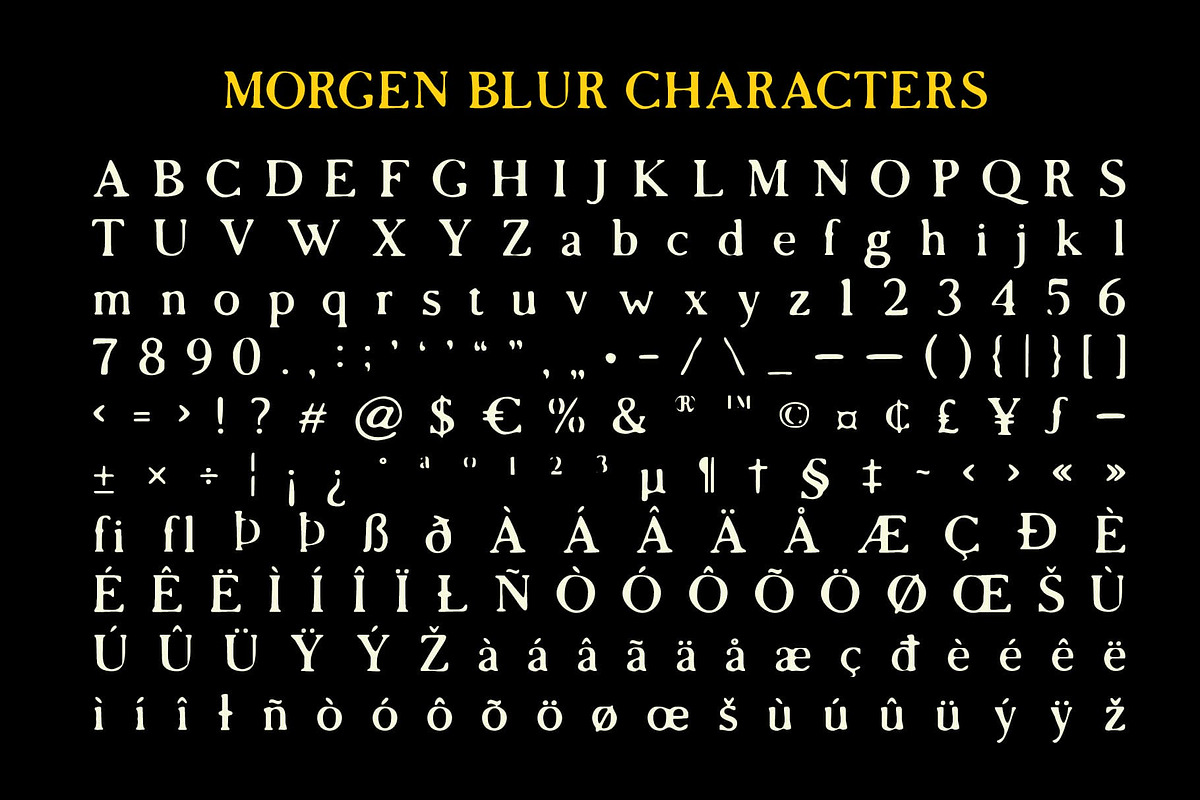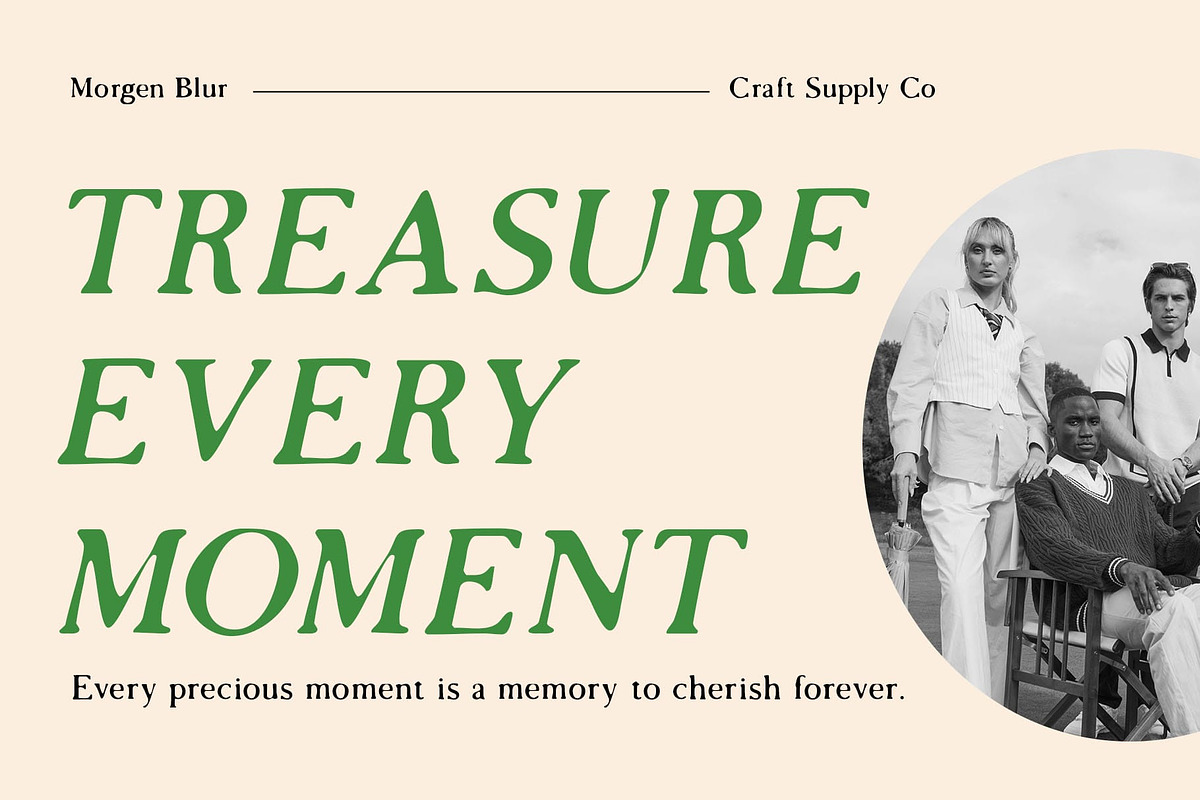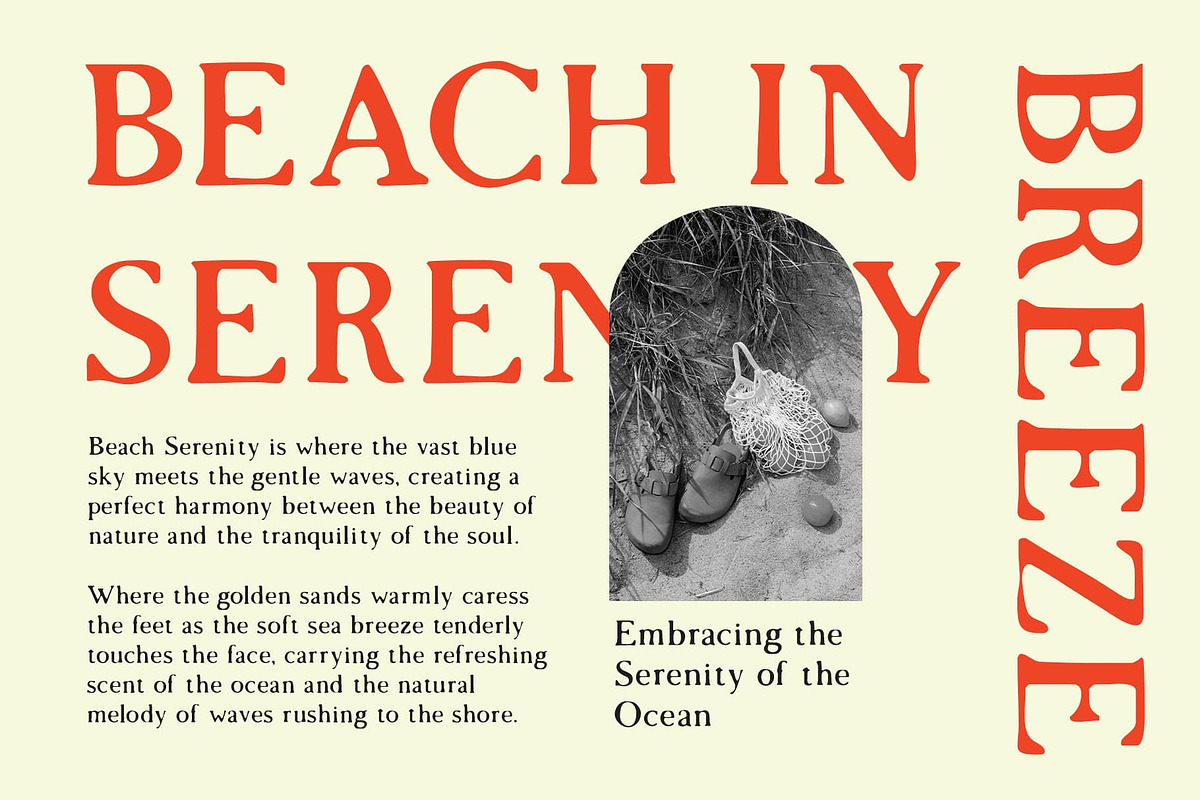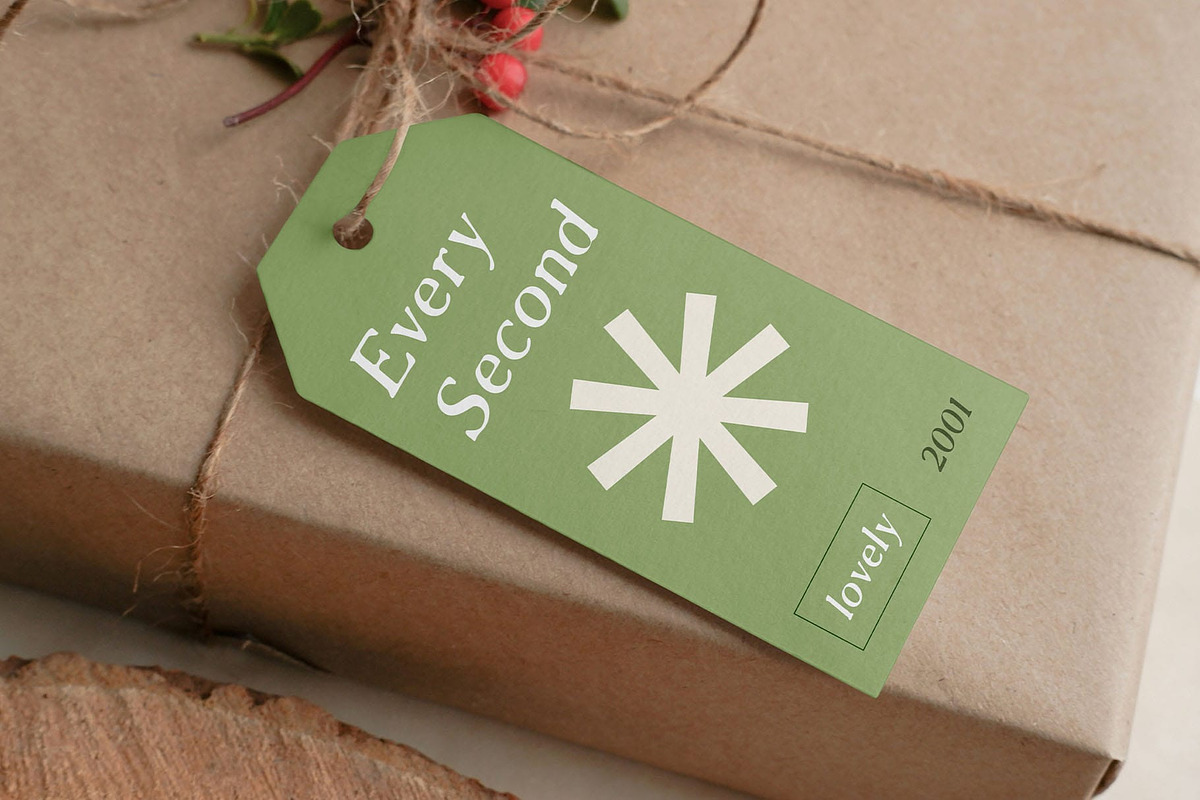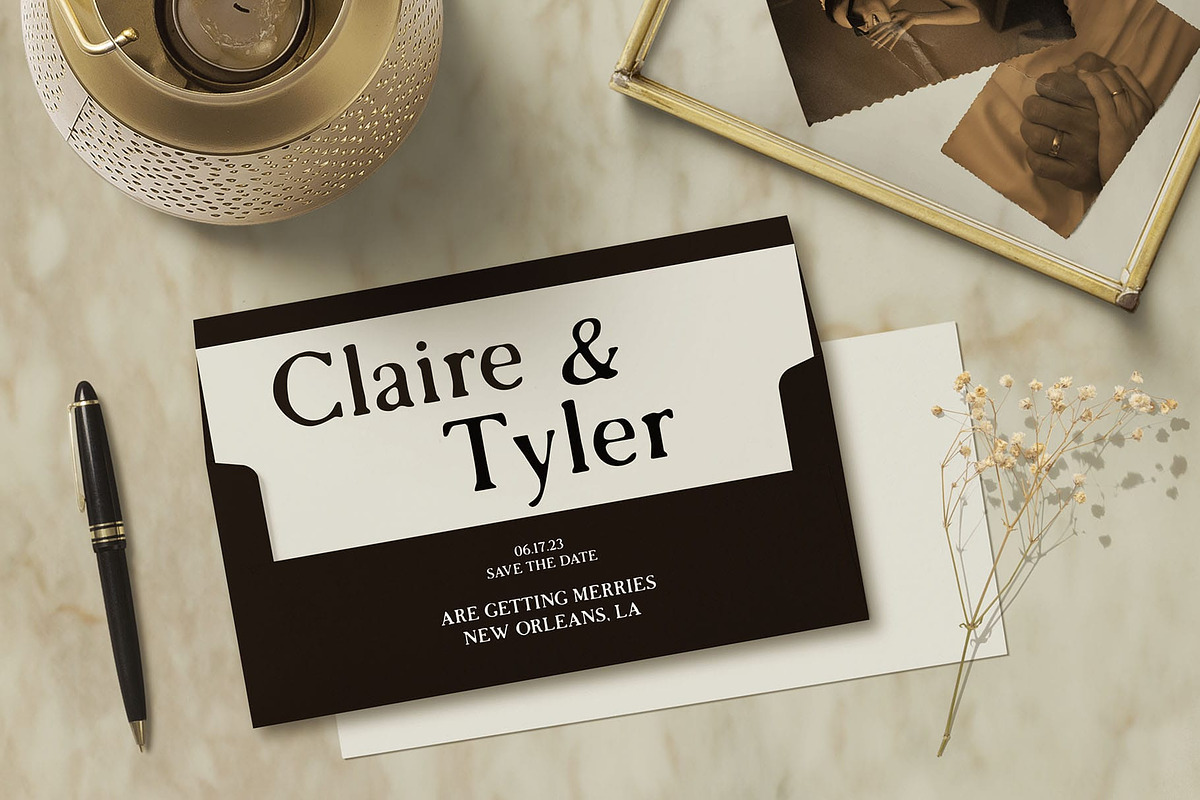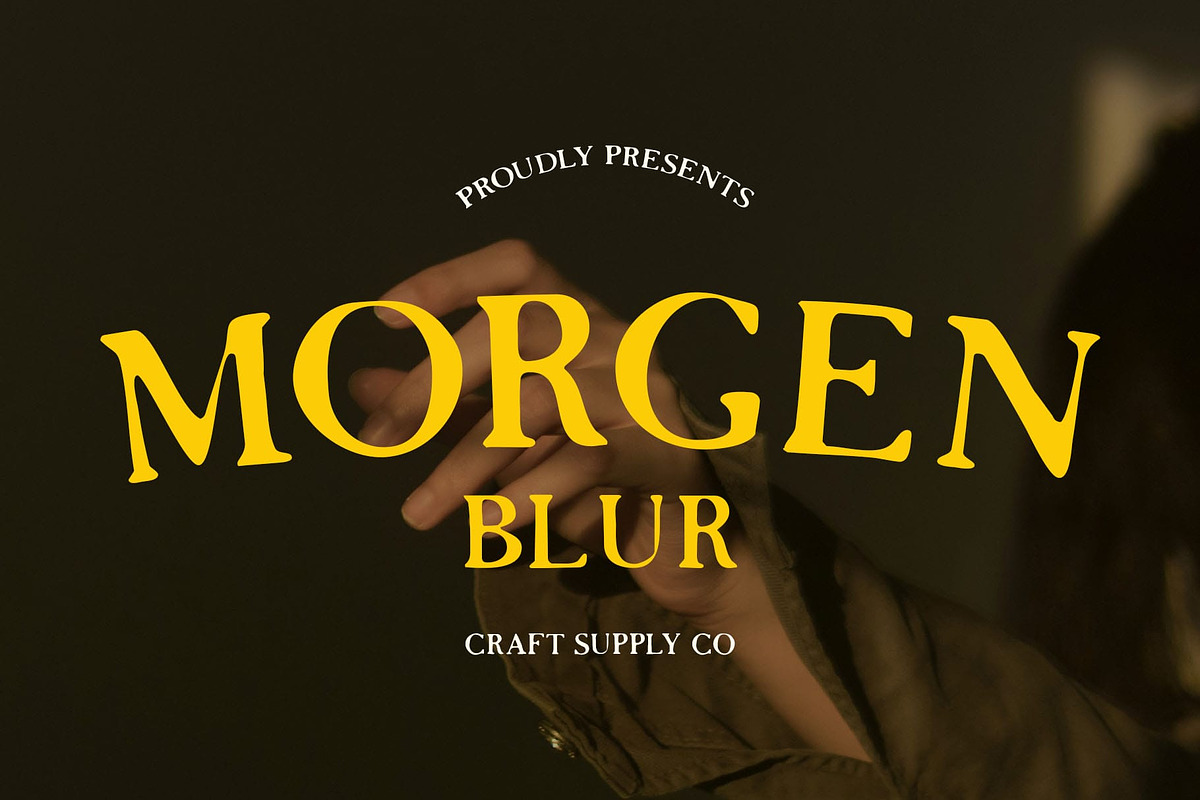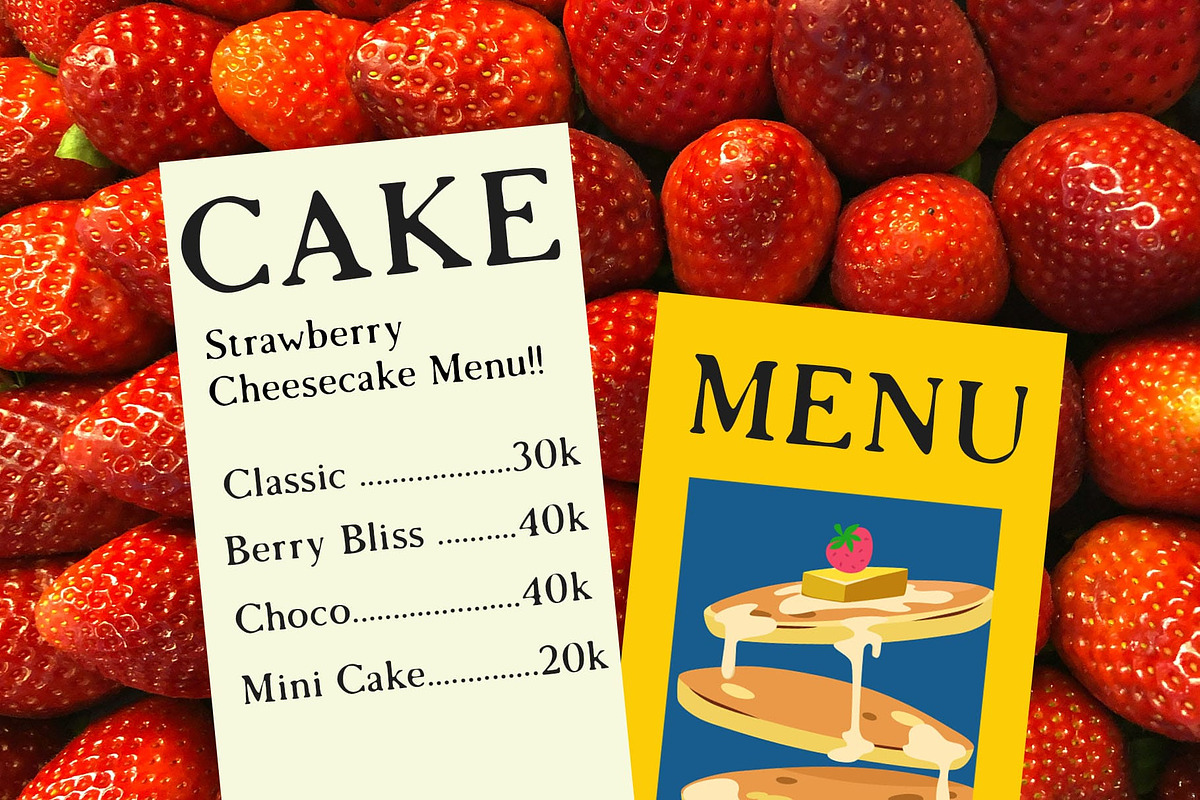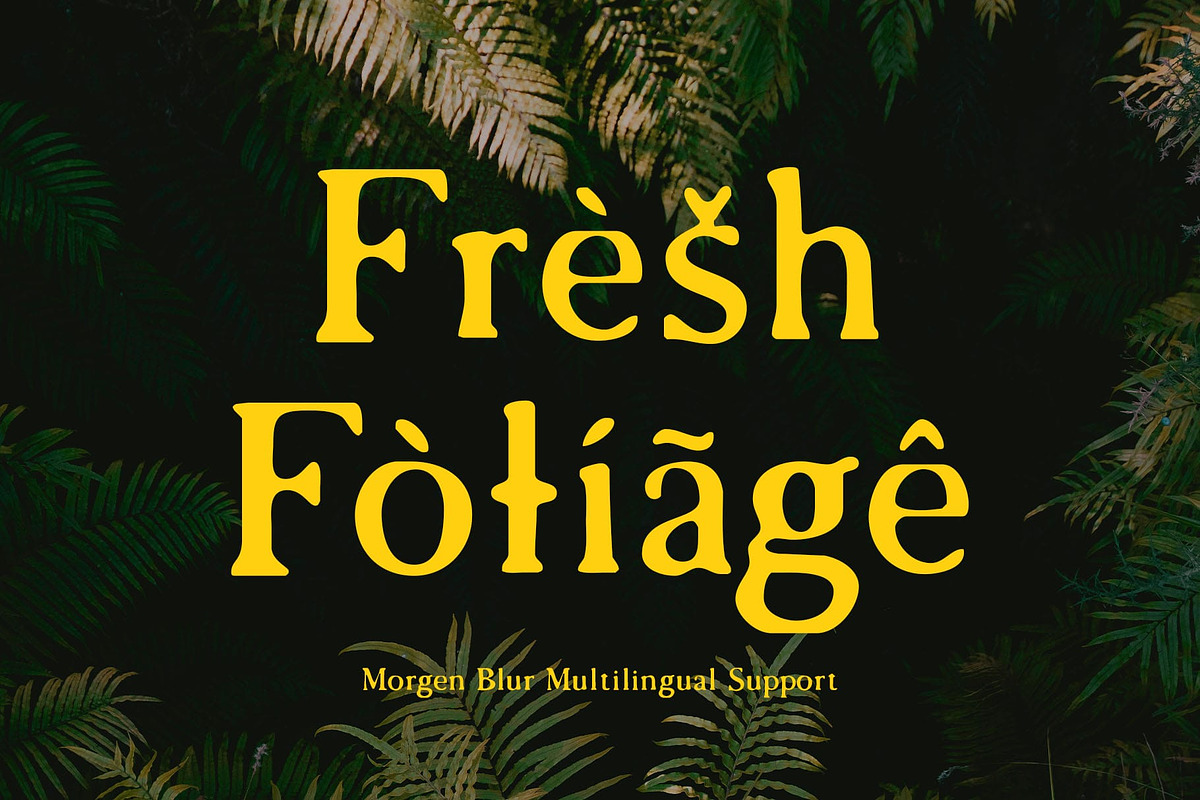
Morgen Blur
Morgen Blur Font – A Classic Serif with a Modern Twist
Timeless Elegance with a Contemporary Blur Effect Morgen Blur is a modern serif font that merges classic sophistication with an artistic experimental touch. With its sharp yet refined letterforms, it maintains the essence of traditional serif typography, while the blur effect introduces a soft, ethereal quality that adds depth and intrigue to the design.
A Fusion of Luxury and Innovation Designed for high-end branding, premium editorials, and exclusive packaging, Morgen Blur brings a mysterious yet polished aesthetic. The subtle distortion of the blur effect creates a dreamlike elegance, making it perfect for fashion campaigns, luxury product designs, and creative visuals that demand a modern yet timeless appeal.
A Font That Stands Out The delicate balance between structured serif forms and the organic blur effect results in a dynamic, eye-catching typographic experience. Whether used in magazines, digital designs, or branding, Morgen Blur offers a unique visual identity, ensuring a memorable and sophisticated impact.
Perfect for Experimental and High-End Designs Morgen Blur is ideal for designers looking to blend heritage and modernity, adding a refined yet avant-garde feel to any project. Its combination of classic structure and artistic distortion makes it a versatile and expressive choice for projects that require boldness, elegance, and innovation.